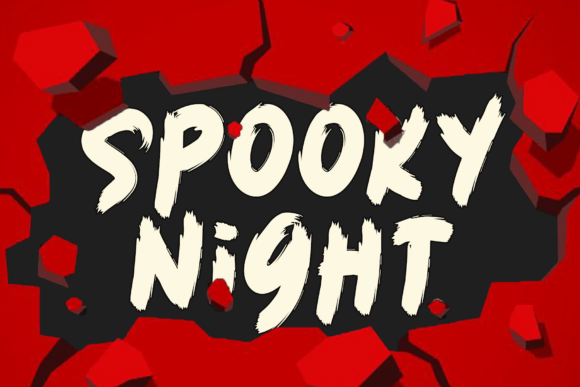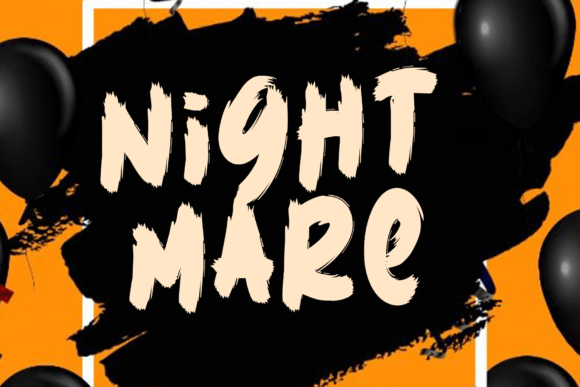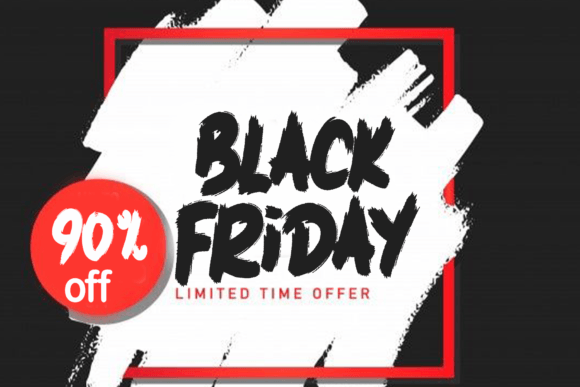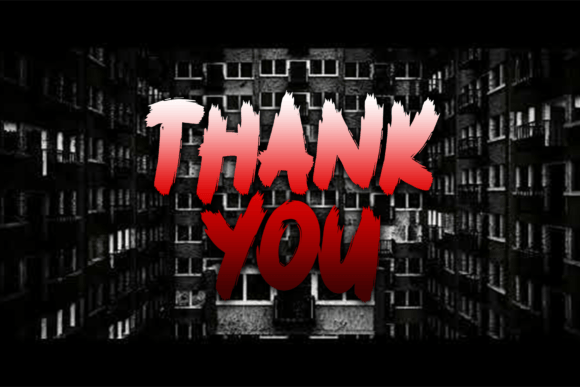
Unleash Your Inner Horror with Our Halloween Font
Halloween is just around the corner, and what better way to get into the spooky spirit than with a font that’s sure to send chills down your spine? Our Halloween font is the perfect addition to any design project that requires a creepy and mysterious touch. Inspired by the eerie and suspenseful atmosphere of horror movies and mystery stories, this font is sure to unleash your inner horror.
The Inspiration Behind the Font
Our Halloween font was created with the intention of capturing the essence of horror and mystery. The font’s design is inspired by the sharp scratches of a knife or a shard of glass on a hard surface, evoking the feeling of fear and unease. The result is a font that’s both haunting and captivating, perfect for creating a creepy atmosphere in your projects.
Key Features of the Halloween Font
- Creepy and Mysterious Design: The font’s design is specifically crafted to create a creepy and mysterious atmosphere. The sharp scratches and rugged texture of the font are sure to add a touch of horror to your projects.
Our Halloween font is perfect for designers and crafters who want to add a touch of horror to their projects. Whether you’re creating invitations, posters, or social media graphics, this font is sure to make your designs stand out. Here are some ideas for using our Halloween font:
- Halloween Invitations: Create spooky invitations for Halloween parties or events using our Halloween font.
- Horror Movie Posters: Use our font to create eye-catching posters for horror movies or haunted attractions.
- Crafting Projects: Add a touch of horror to your crafting projects, such as DIY decorations or scrapbooking, with our Halloween font.
Tips for Using the Halloween Font
Here are some tips for using our Halloween font to create a creepy atmosphere in your projects:
- Experiment with Font Sizes: Play around with different font sizes to create a sense of hierarchy and emphasis in your designs.
- Combine with Images: Combine our Halloween font with creepy images or illustrations to create a haunting atmosphere.
- Use in Combination with Other Fonts: Use our Halloween font in combination with other fonts to create a unique and eye-catching design.